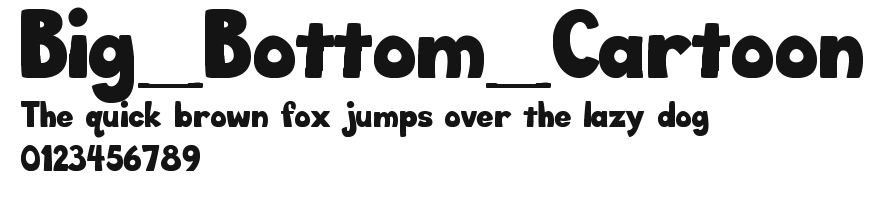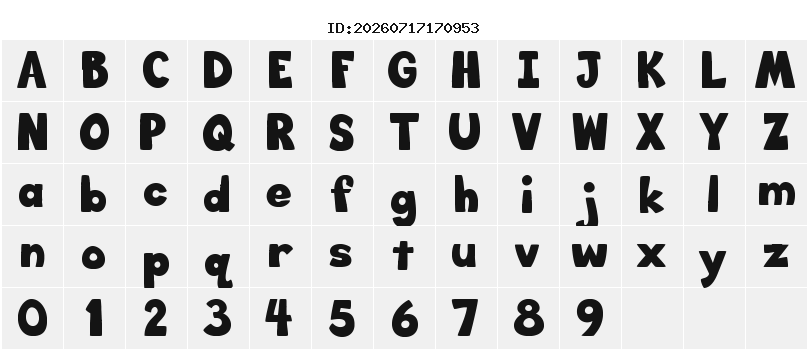
Big_Bottom_Cartoon Preview
• Font Name: Big_Bottom_Cartoon
• Description: This is a bottom-heavy display font.
About Big_Bottom_Cartoon.ttf
Big_Bottom_Cartoon.ttf is a modern, elegant sans-serif font designed for ultimate readability and visual harmony. Perfect for branding, headlines, web design, and print materials.